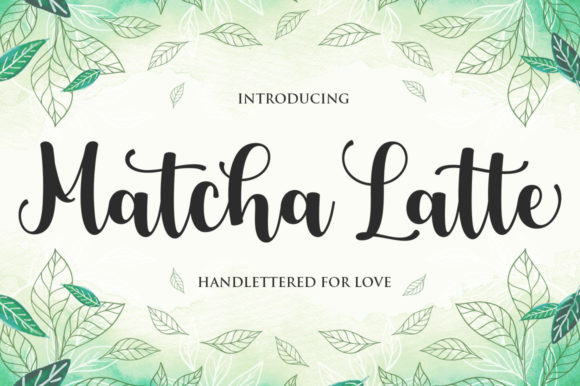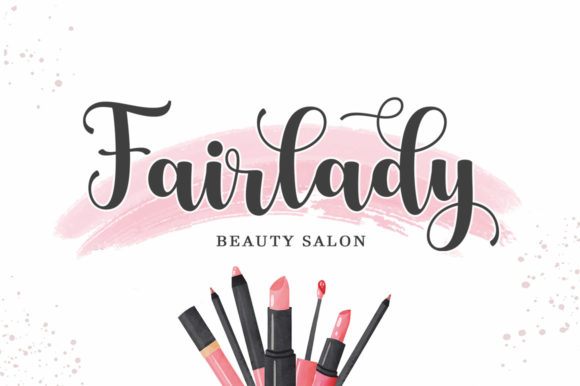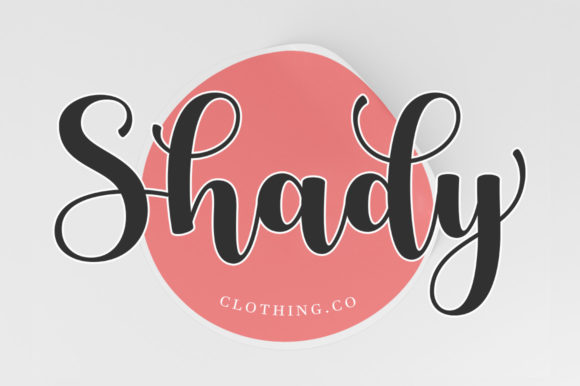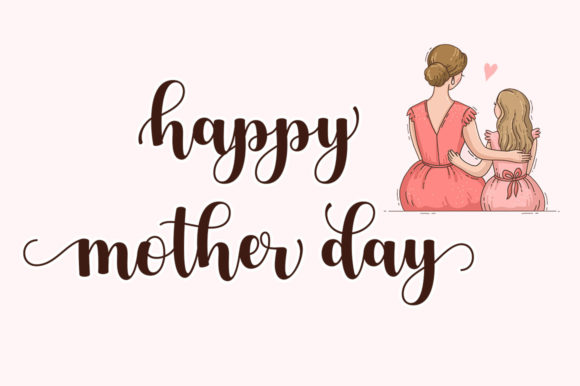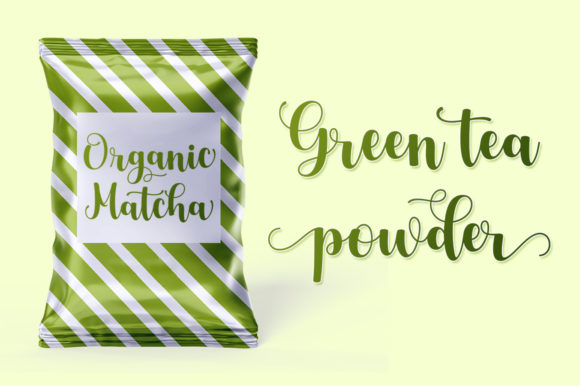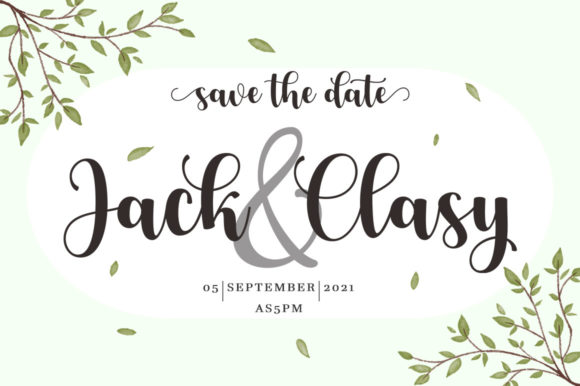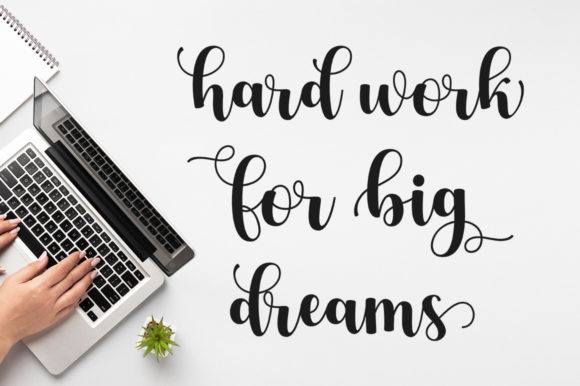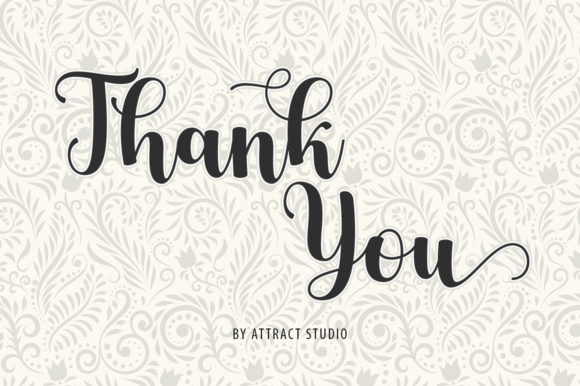
Matcha Latte Script Font
About Matcha Latte Script Font
Matcha Latte Script is a lovely, bold yet sweet handwritten font. This font is PUA encoded which means you can access all of the glyphs and swashes with ease! Add it confidently to your projects, and you will love the results.